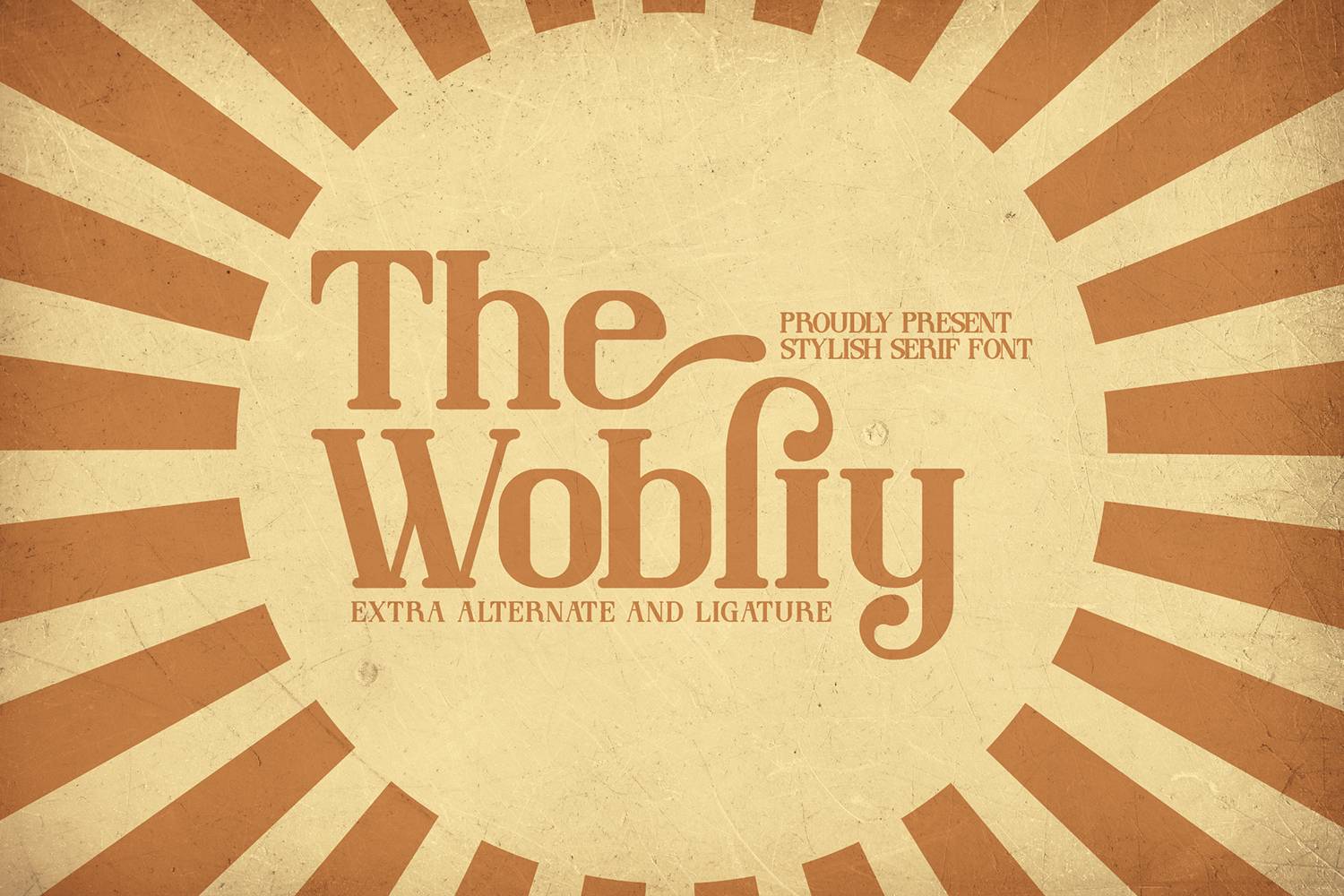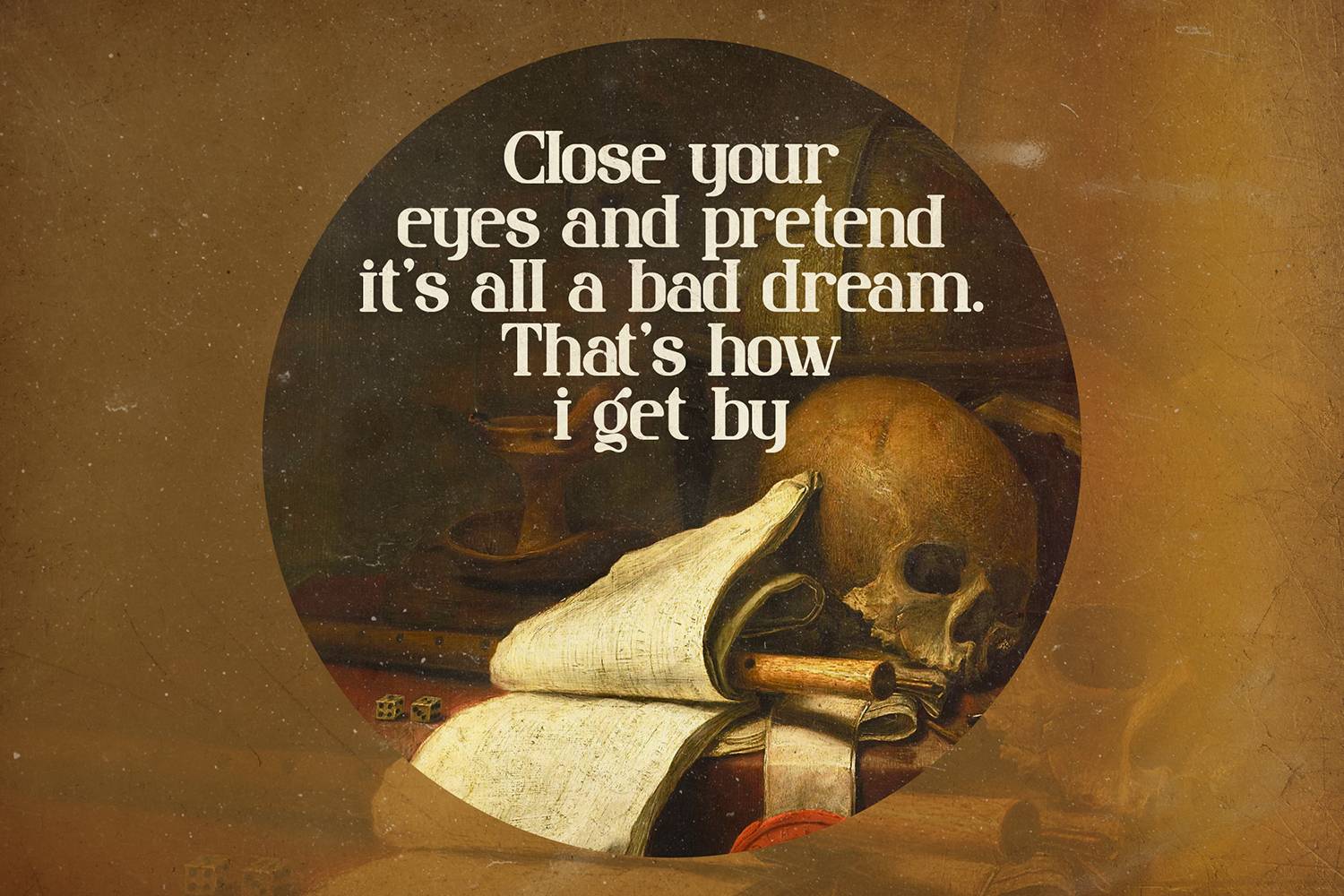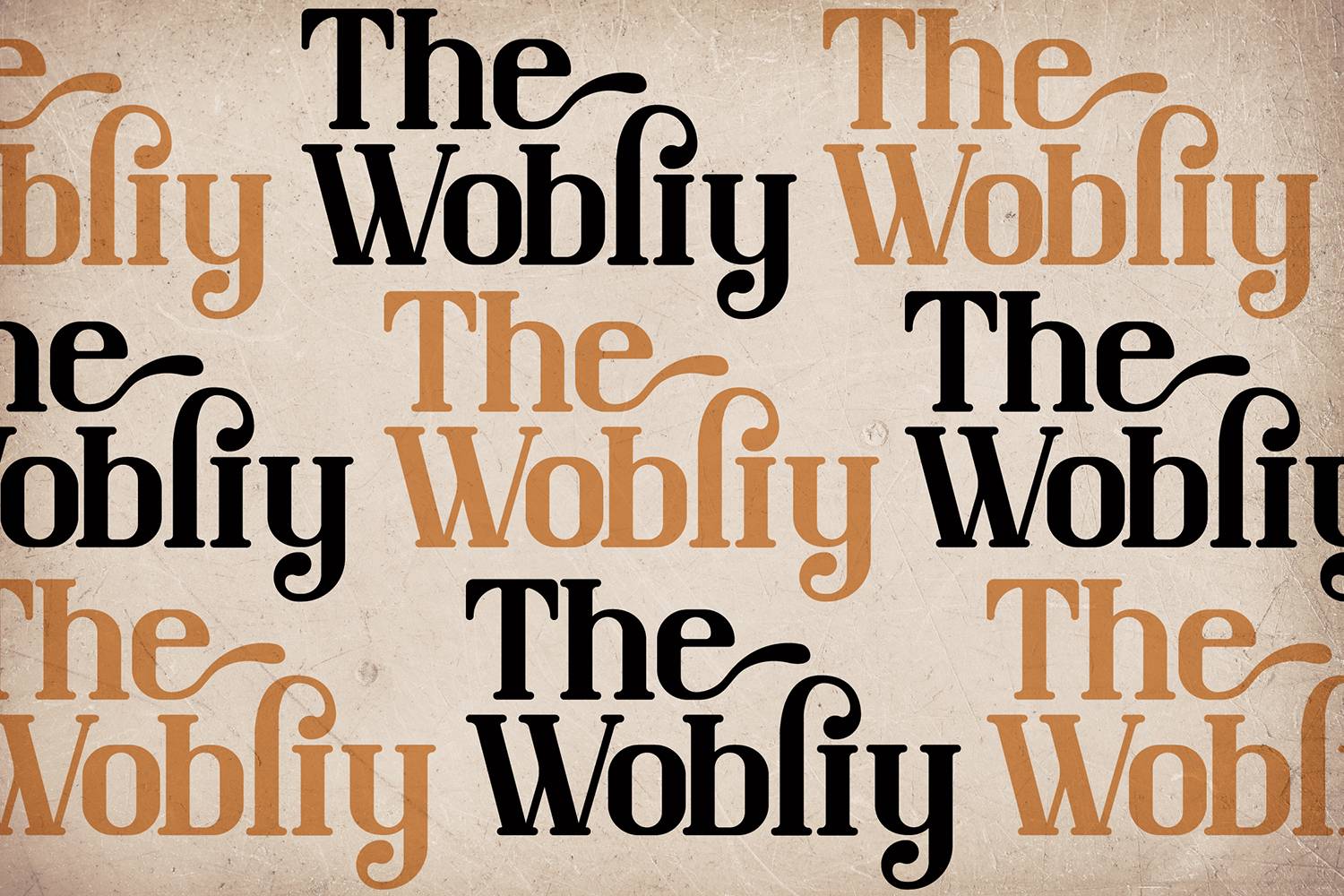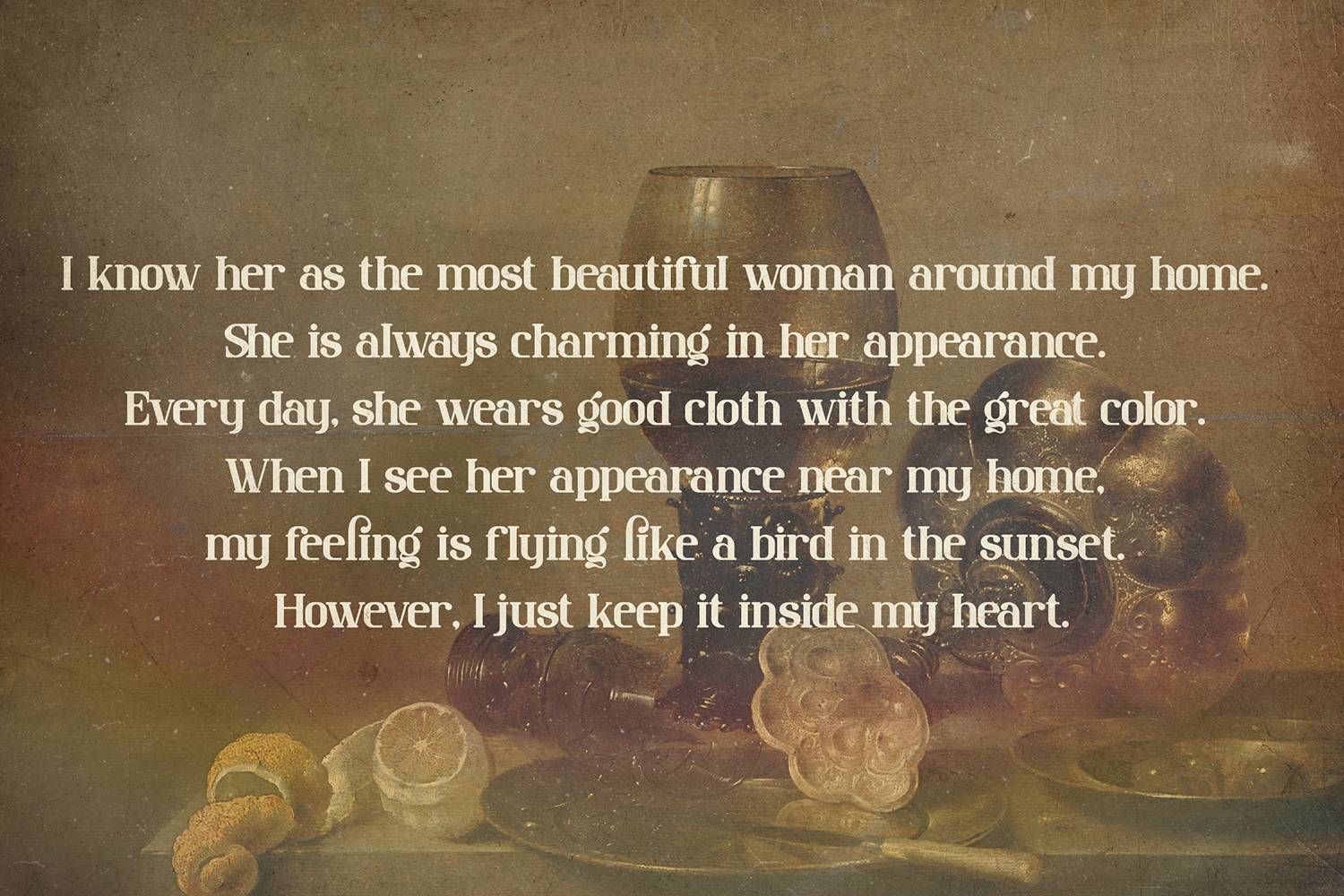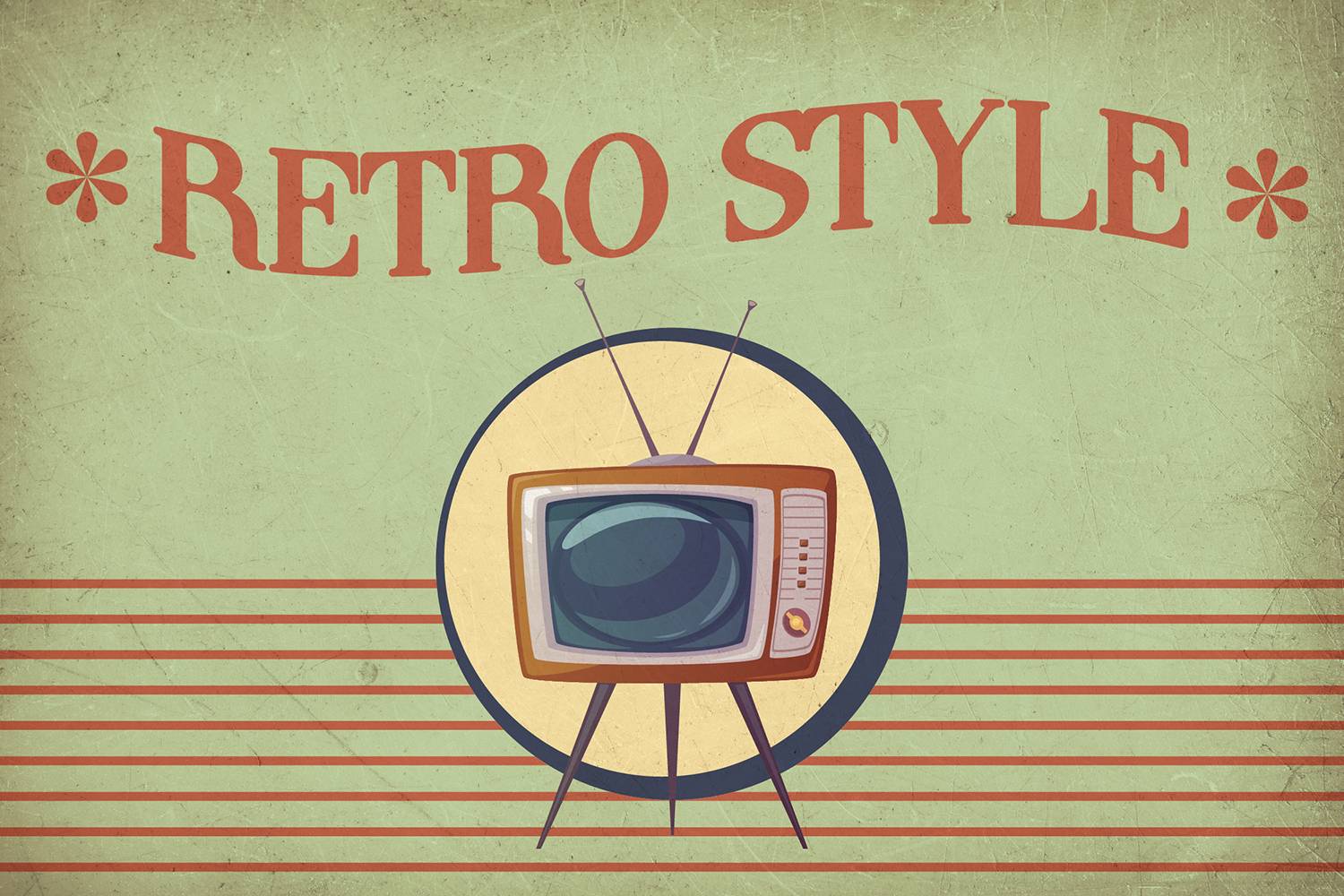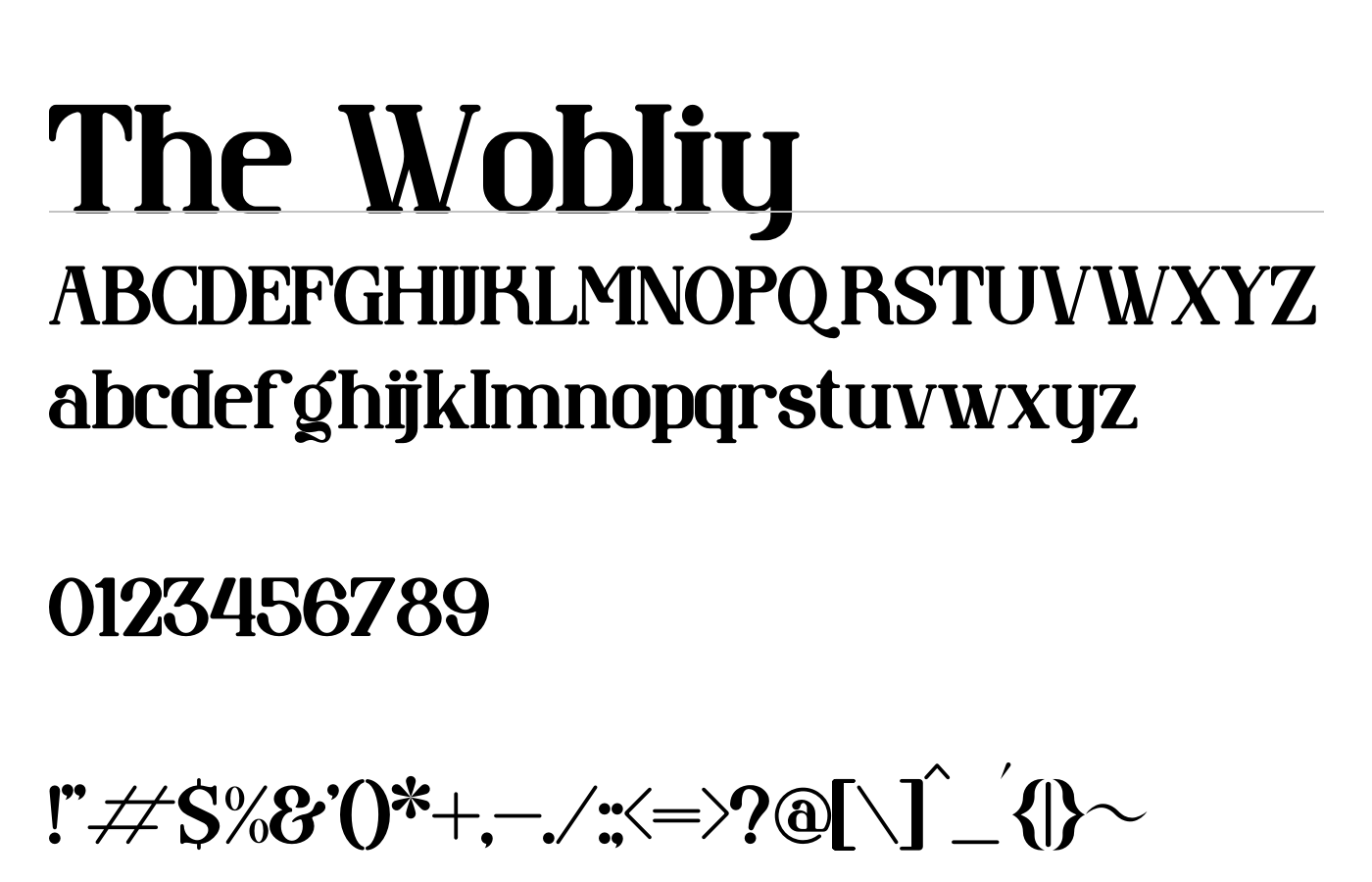
The Wobliy Font is a bold serif typeface with a distinctive, slightly quirky character, featuring strong contrasts between thick and thin strokes and unique letterforms that give it a playful yet refined charm. Its combination of traditional serif elements with unexpected details makes it an excellent choice for eye-catching headlines, logos, and creative editorial designs where a touch of personality and elegance is desired. This font works particularly well in projects looking to balance formality with artistic flair, adding both sophistication and individuality.
The Wobliy Font
About The Wobliy Font